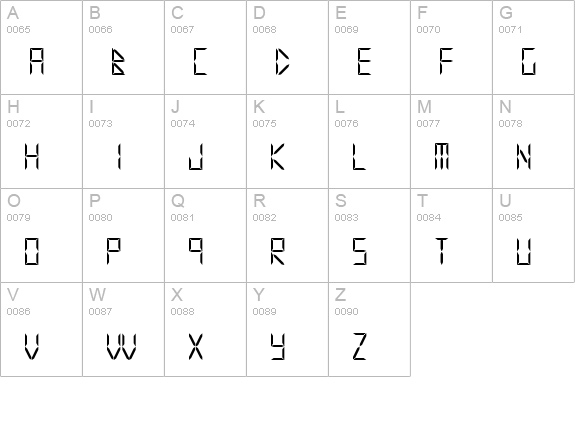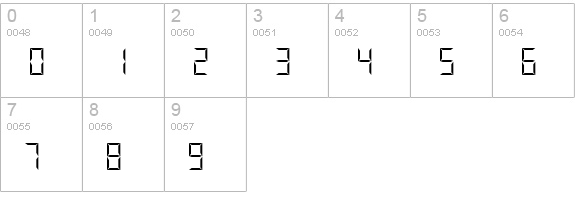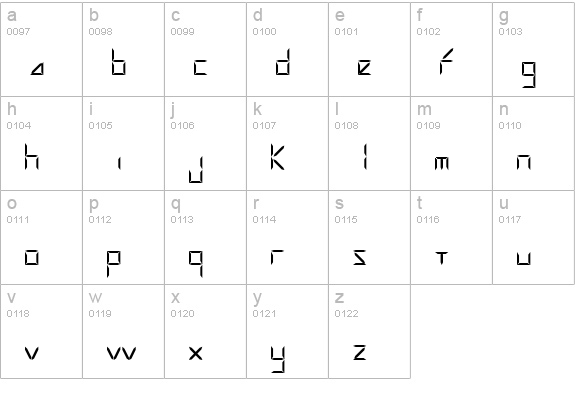
4Function Liberal Font Details
4Function Liberal font is a versatile and elegant typeface that is perfect for any design project. With its clean lines and modern feel, this font adds a touch of sophistication to any text. Whether you are designing a logo, creating a website, or working on a print project, 4Function Liberal font will elevate your design to the next level. One of the best things about 4Function Liberal font is that it is free. That's right, you can download this amazing font without spending a dime. It is freely available to download at FontsMarket.com, a trusted online resource for high-quality fonts. With 4Function Liberal font, you have the freedom to create stunning designs without breaking the bank. Whether you are a professional designer or a hobbyist, this font is a must-have in your collection. Its versatility and elegance make it suitable for a wide range of projects, from branding to advertising to editorial design. The clean lines and modern feel of 4Function Liberal font make it easy to read, even at smaller sizes. This makes it a great choice for body text in magazines, newspapers, and websites. It also works well as headlines and titles, thanks to its bold and striking appearance. 4Function Liberal font is available in multiple weights and styles, allowing you to choose the perfect one for your project. Whether you prefer a light and airy feel or a bold and impactful look, this font has you covered. Its versatility and adaptability make it suitable for a wide range of design styles and themes. Overall, 4Function Liberal font is a fantastic choice for designers who are looking for a versatile and elegant typeface that is also free. With its clean lines, modern feel, and wide range of weights and styles, this font is sure to enhance any design project. Download it today from FontsMarket.com and unleash your creativity.